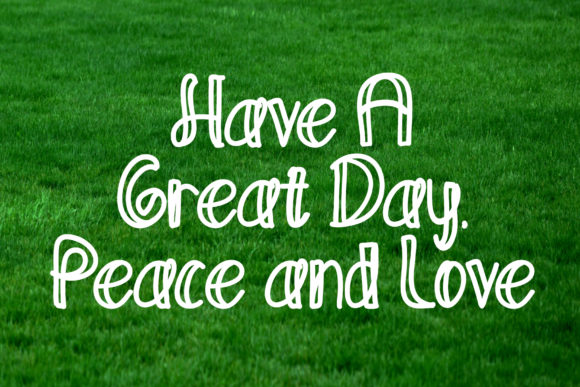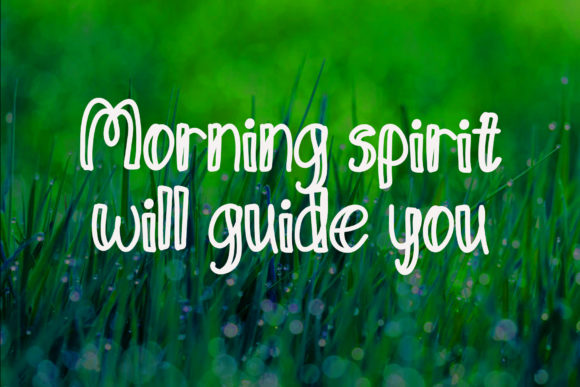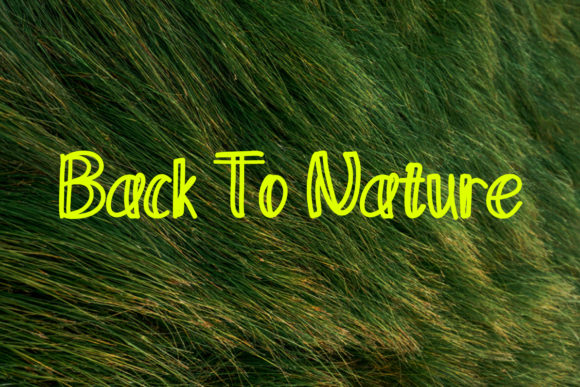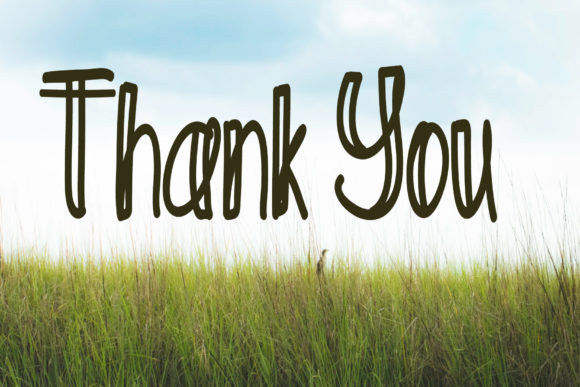
Introduction to Beauty Farm Font
The moment of pure creative bliss – staring at a blank page, envisioning a stunning design, and then, it happens. The perfect font appears, and your entire project comes to life. For designers, this moment is what drives us, what makes our work truly special. And, for those who have been searching for the perfect display font, we have exciting news. Say hello to the Beauty Farm Font, a game-changing design resource that will elevate your creative project to new heights.
With its incredibly versatile style, the Beauty Farm Font is the perfect addition to any design. Whether you’re working on a wedding invitation, a thank you card, or a logo, this high-quality font will add a simple yet fun touch that will leave a lasting impression. And the best part? It’s free to download, allowing you to bring your creative vision to life without breaking the bank.
Key Features of Beauty Farm Font
- High-quality design resource for creative projects, ideal for use in digital and print media.
- Unique and elegant design, suitable for use in beauty, wellness, and spa-related industries.
- Comprehensive character set, including uppercase and lowercase letters, numbers, and special characters.
Honest Review: Beauty Farm Font
I recently had the chance to work with the Beauty Farm Font, and I have to say it’s been a pleasant experience. This font is perfect for any creative project where you want to add a touch of elegance and sophistication.
- High-quality design that is perfect for beauty and wellness-related projects
- Transparency options, allowing you to customize the background to your liking
- Works well with both digital and print media
- ⚠️ Limited character set, which may not be ideal for longer text-based projects
- ⚠️ Not suitable for bold or oversized typography
Overall, I’m impressed with the Beauty Farm Font. It’s a great addition to any design resource library, and its high-quality design makes it perfect for a wide range of creative projects. If you’re looking for a free font with a touch of elegance, I would definitely recommend giving it a try.
How to Use Beauty Farm Font
The Beauty Farm Font is a high-quality, free download design resource ideal for creative projects. With its elegant and modern design, it’s perfect for adding a touch of sophistication to your designs. The font features a transparent background, making it easy to layer and customize to fit your needs.
Tips for Getting the Most Out of the Beauty Farm Font
To get the most out of the Beauty Farm Font, consider the following tips:
Use it in conjunction with other design elements to create a cohesive look.
Experiment with different font sizes and styles to add visual interest.
Use the transparent background to create a sense of depth and dimension.
The Beauty Farm Font is perfect for a variety of creative projects, including:
Brochures and flyers.
Business cards and letterheads.
Wedding invitations and save-the-dates.